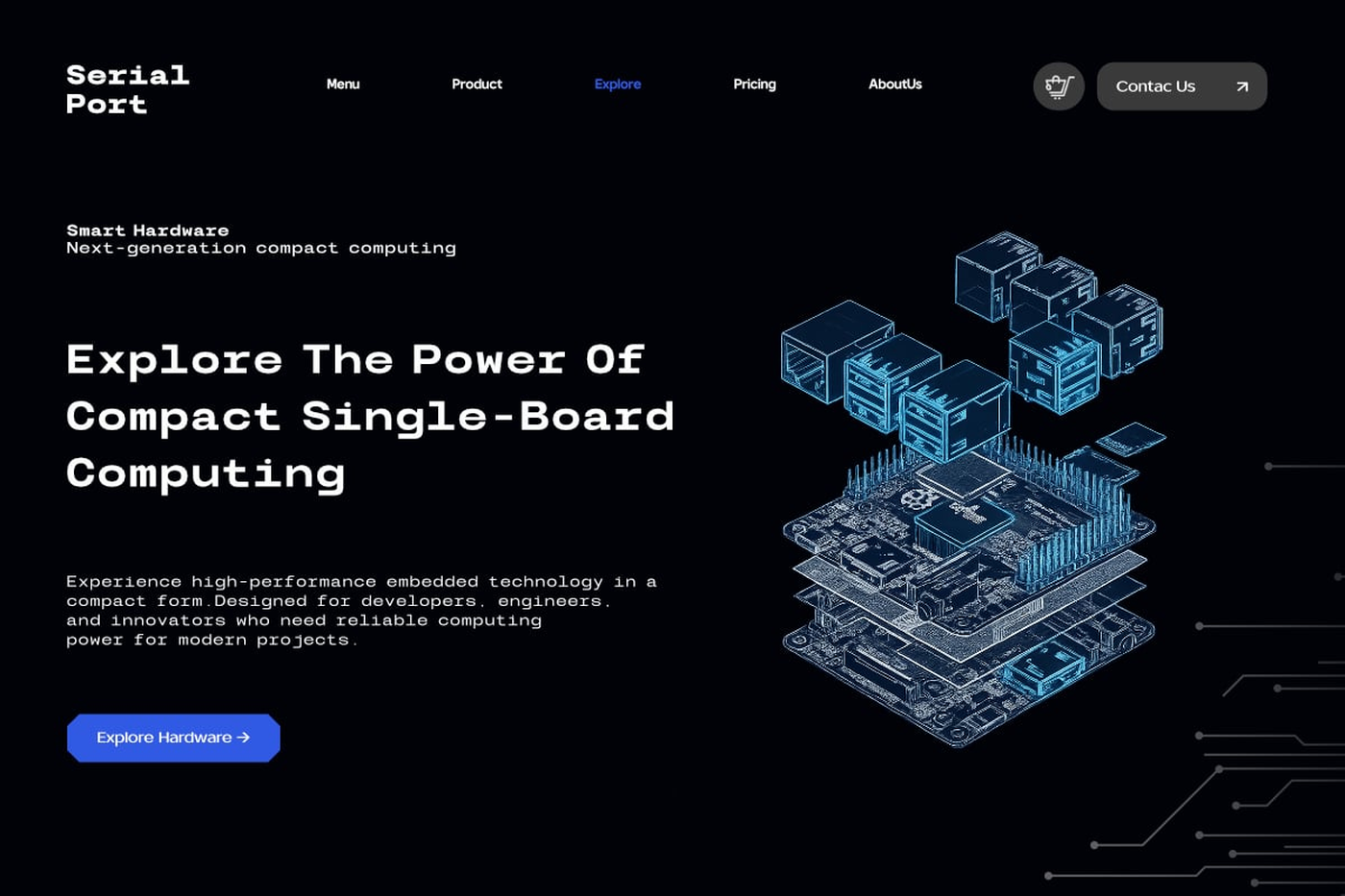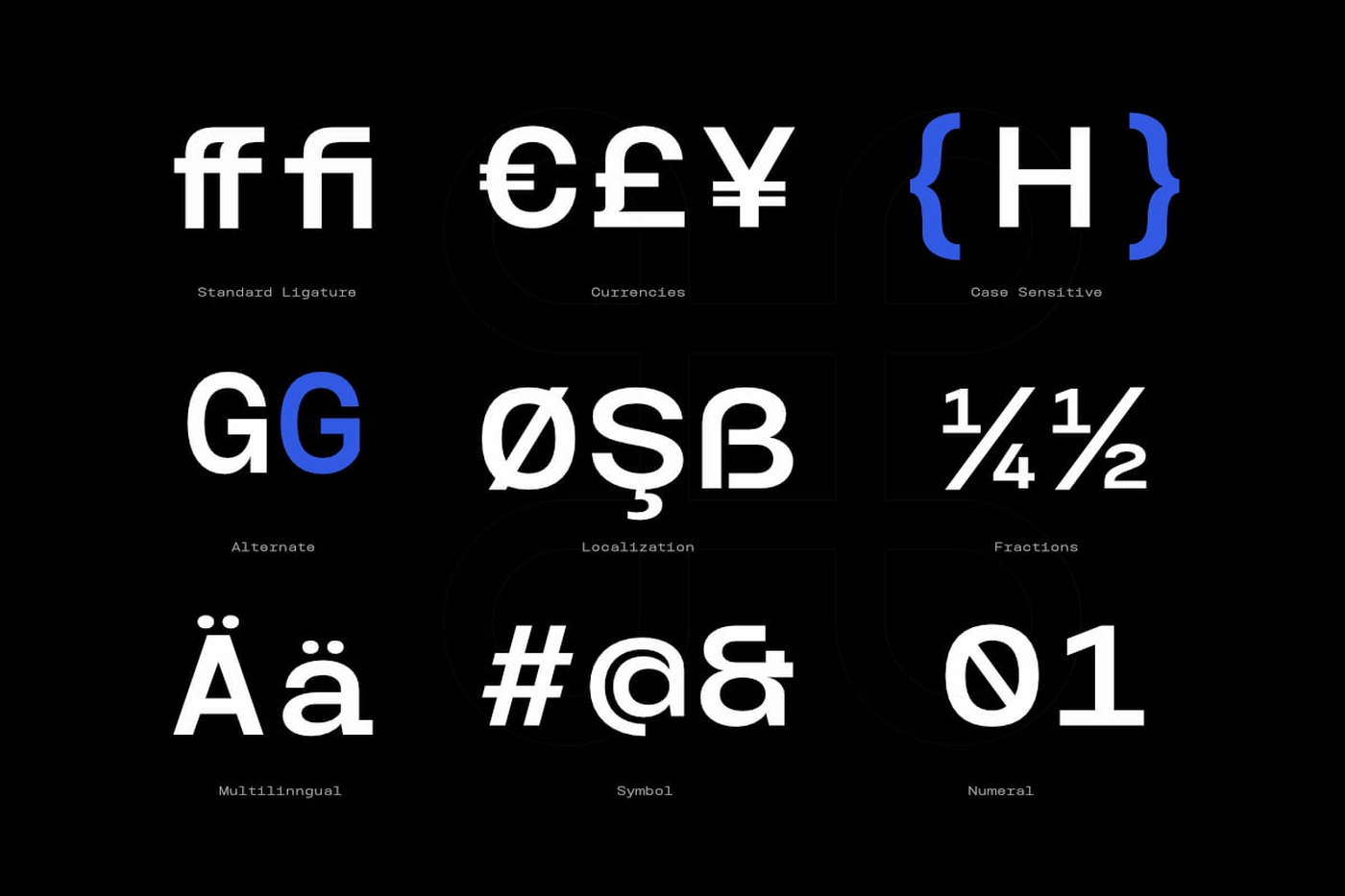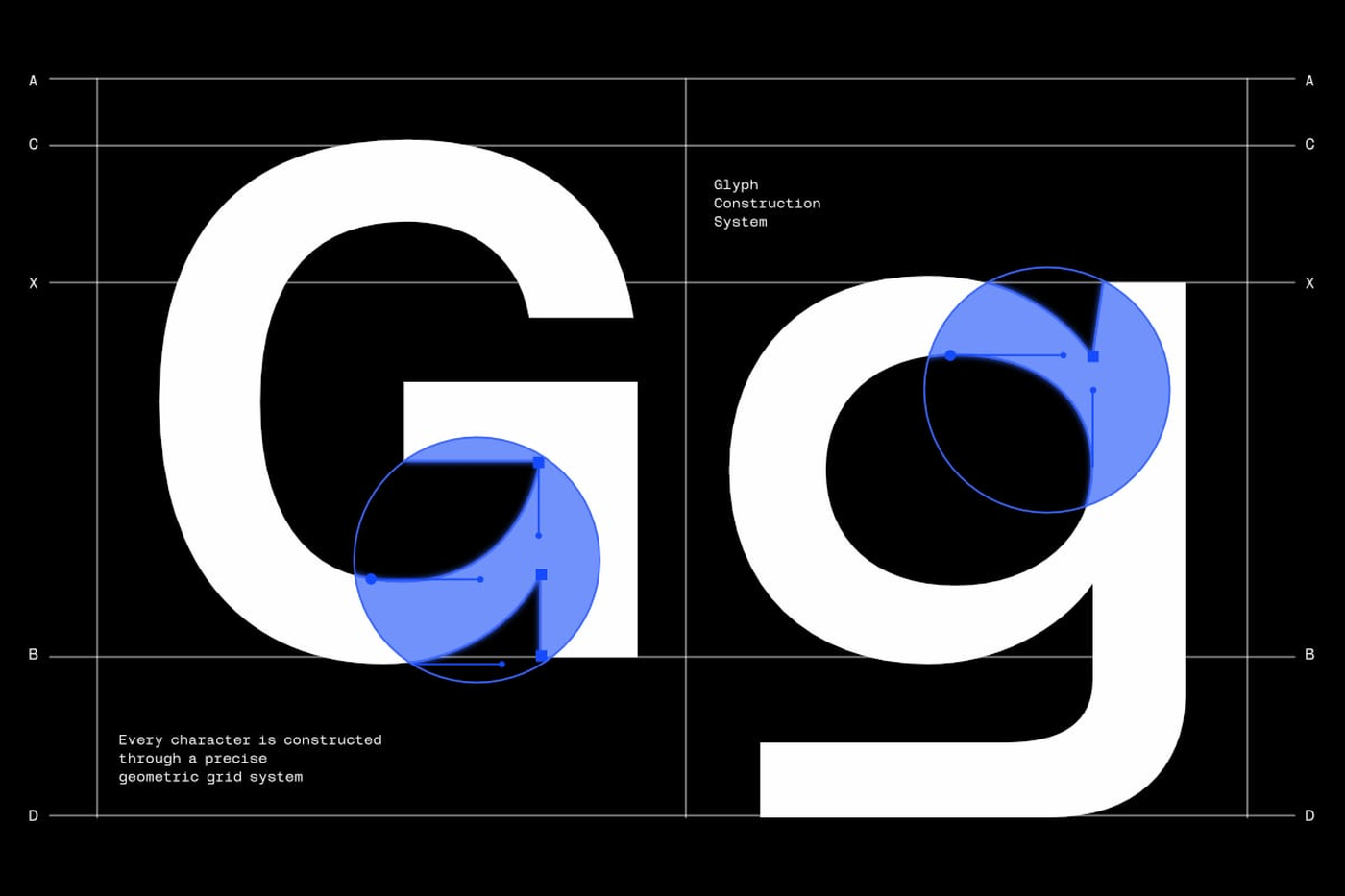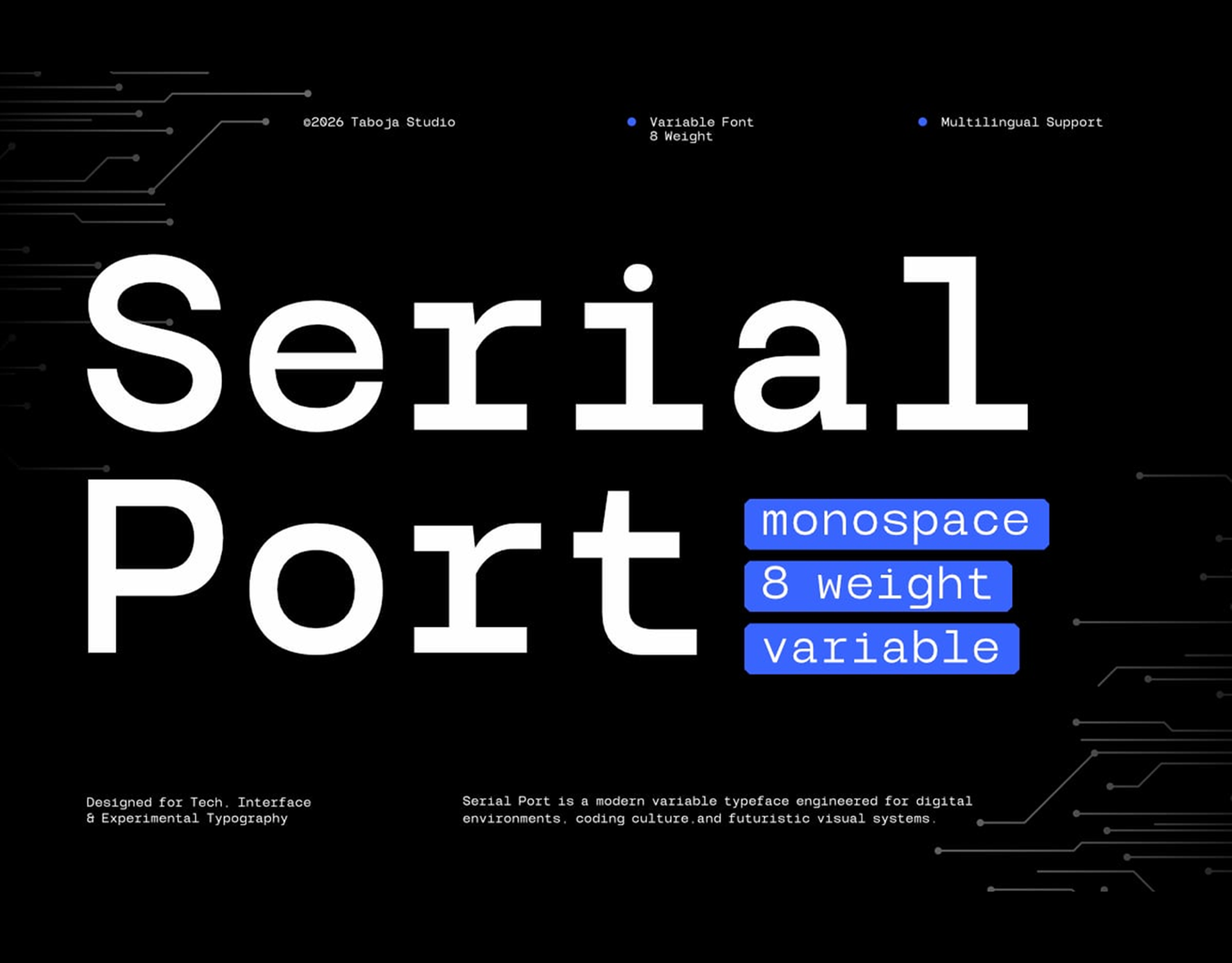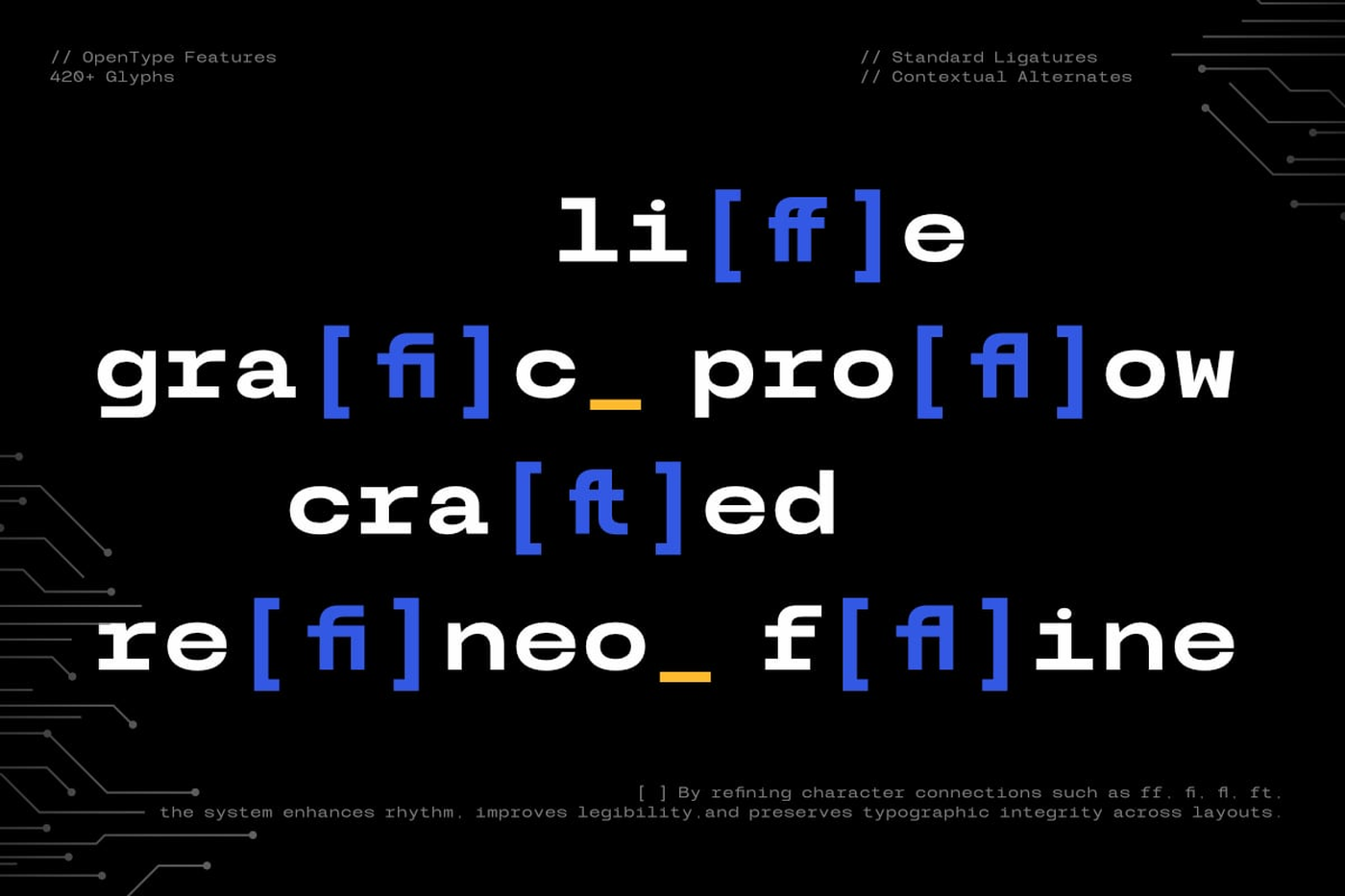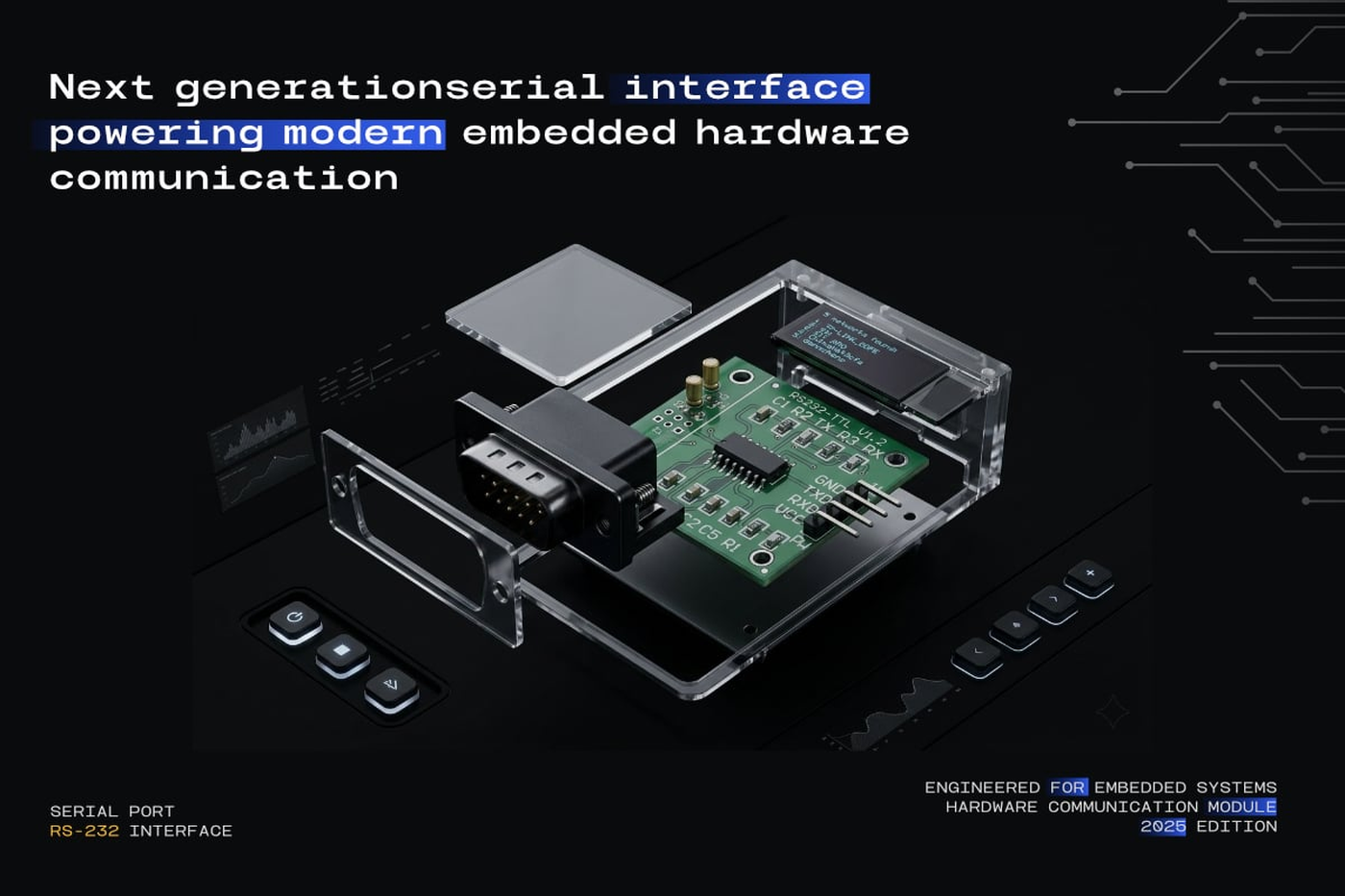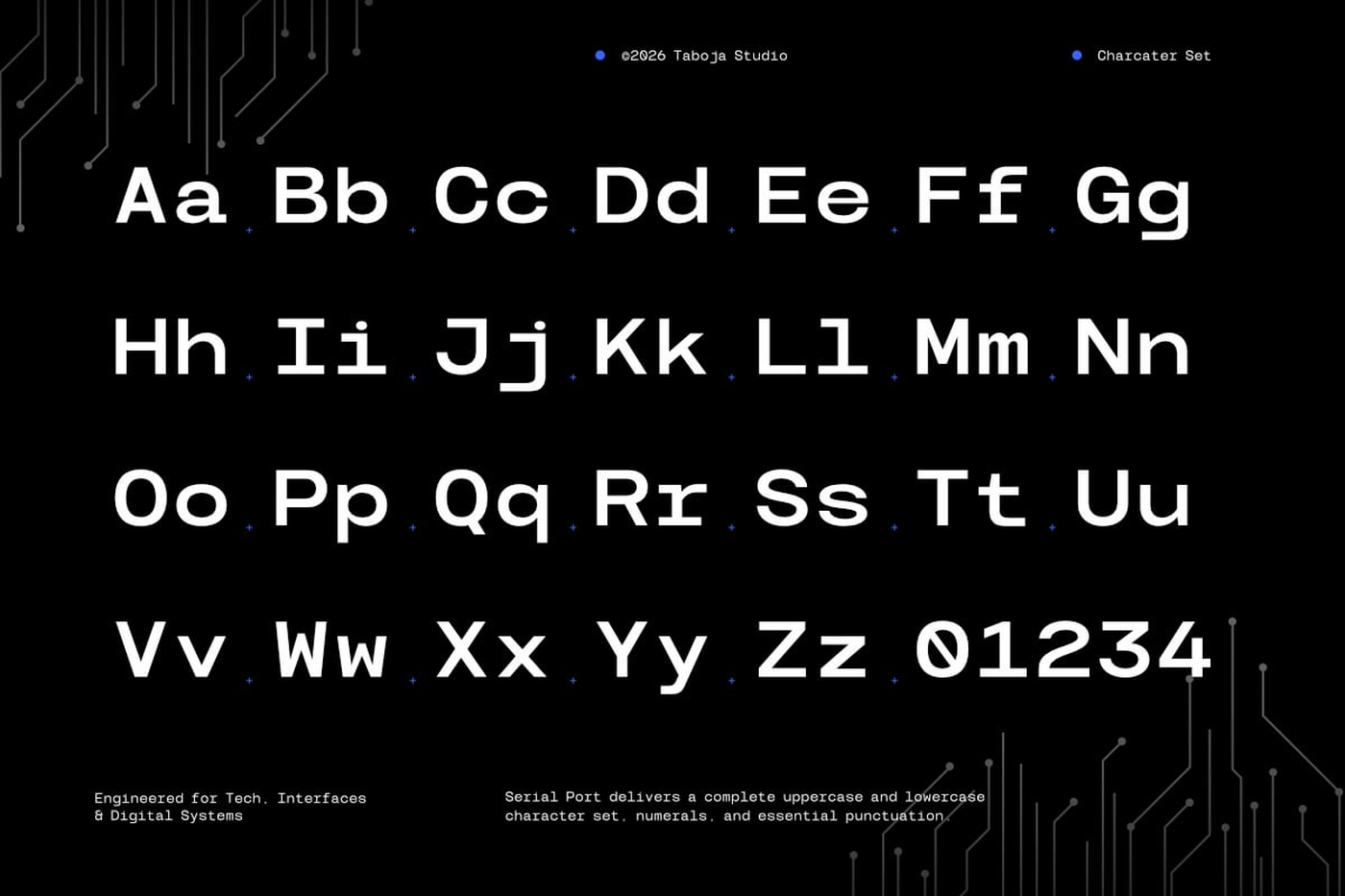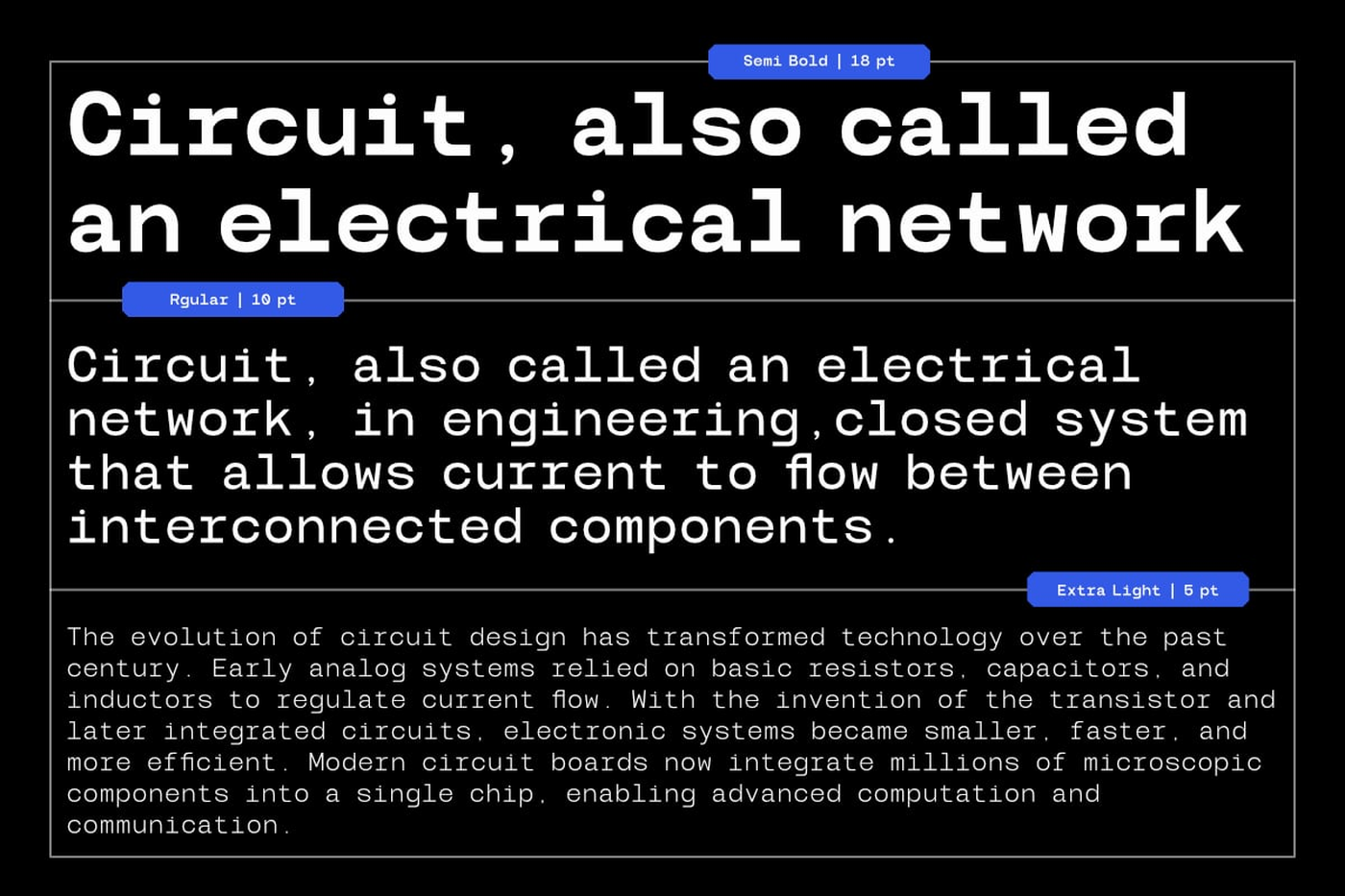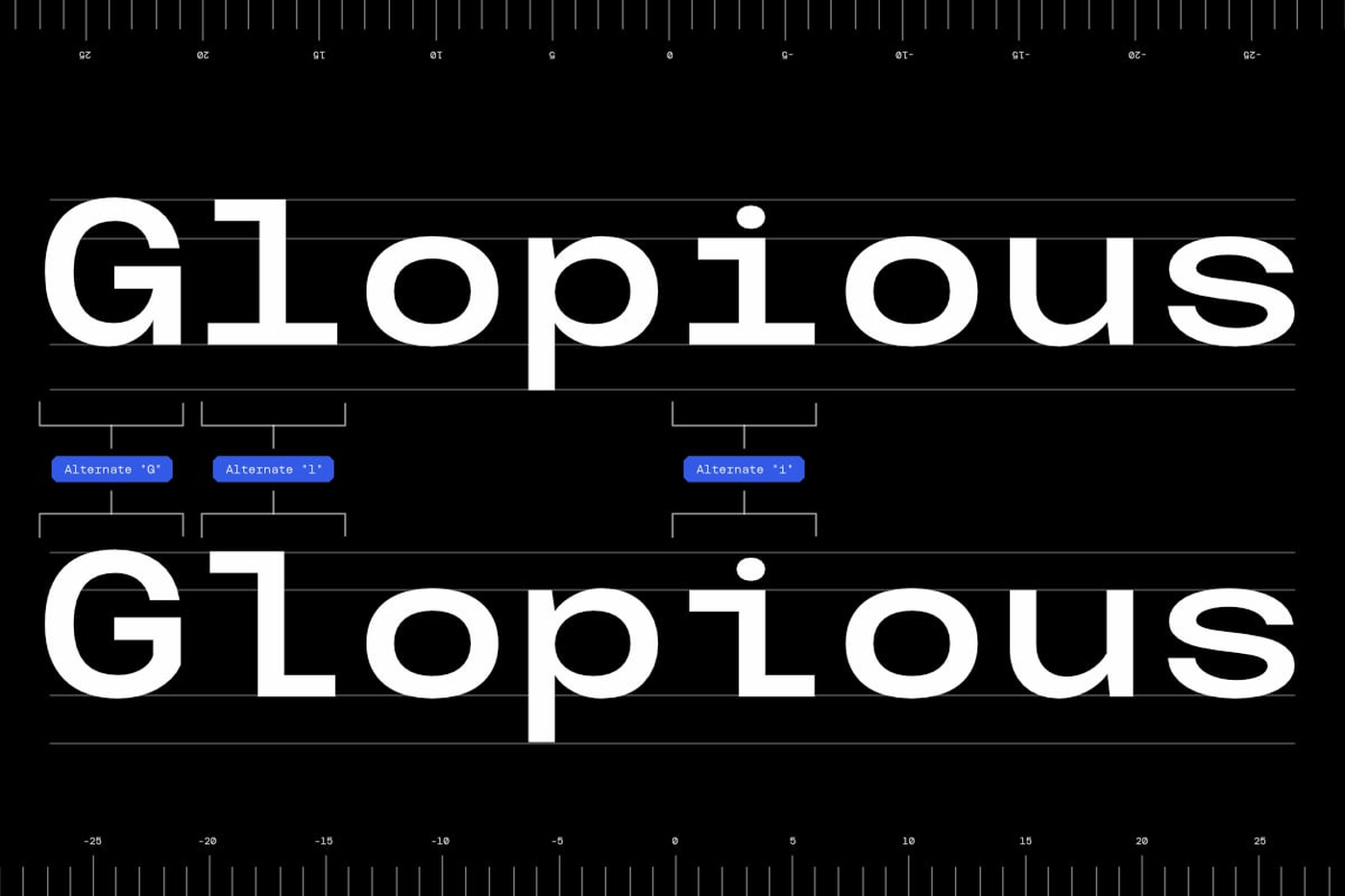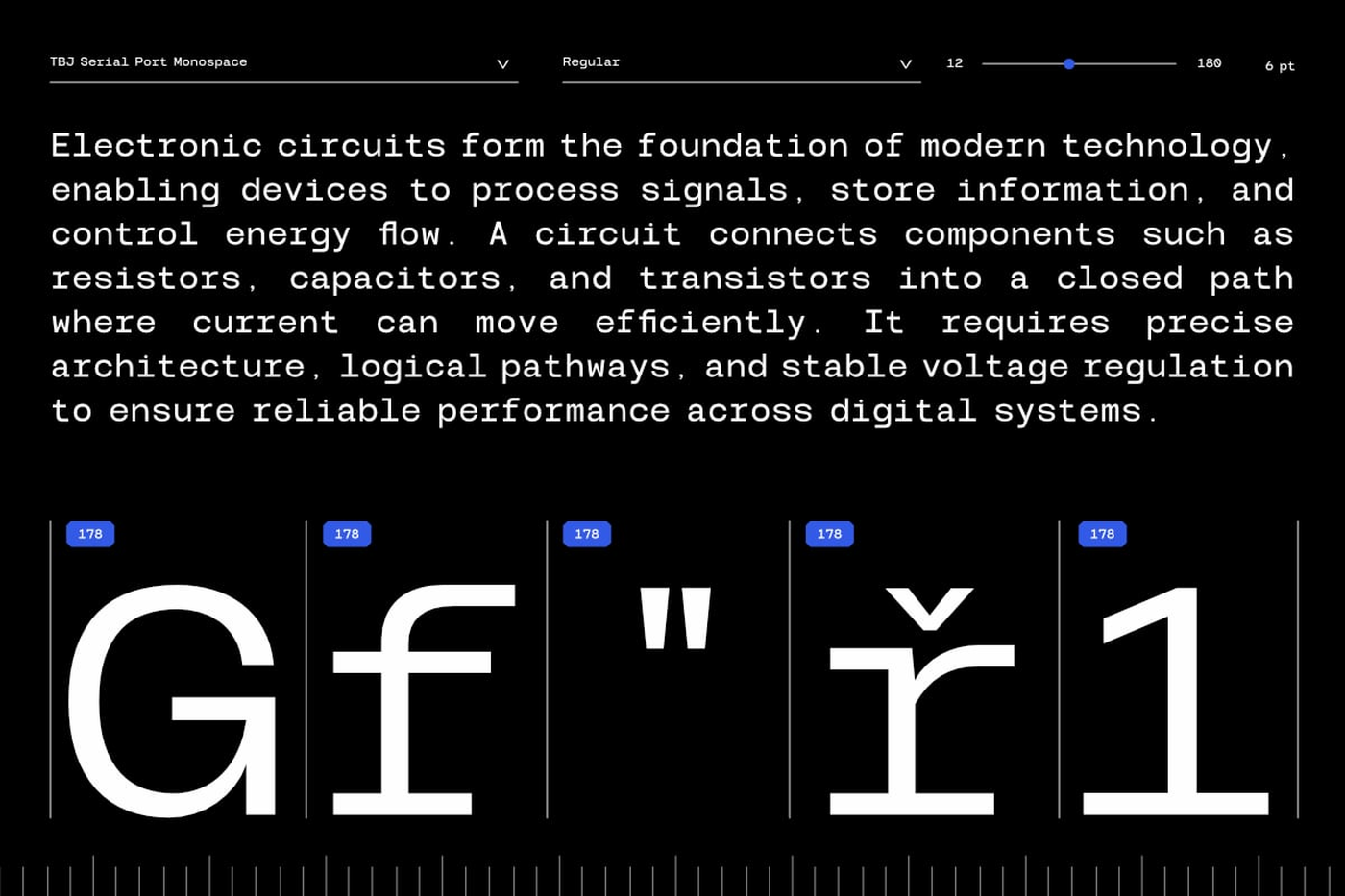
Serial Port - Modern Monospace Font
TBJ Serial Port is a modern monospace typeface developed with a focus on clarity, consistency, and practical use in digital environments. It draws from the structured nature of traditional monospace fonts, where uniform character widths create a steady visual rhythm that works well across both technical and design contexts. The typeface is built on a grid-based system, allowing each character to align cleanly without disrupting readability. This approach makes TBJ Serial Port suitable for interfaces, coding environments, and layouts where precision and spacing play an important role. At the same time, small refinements in certain letterforms help reduce the rigid feel often associated with monospace designs.